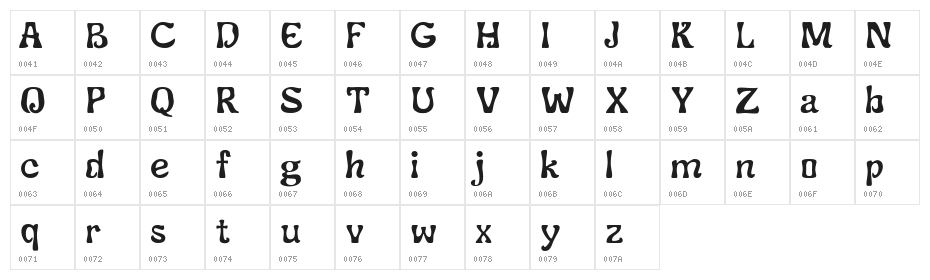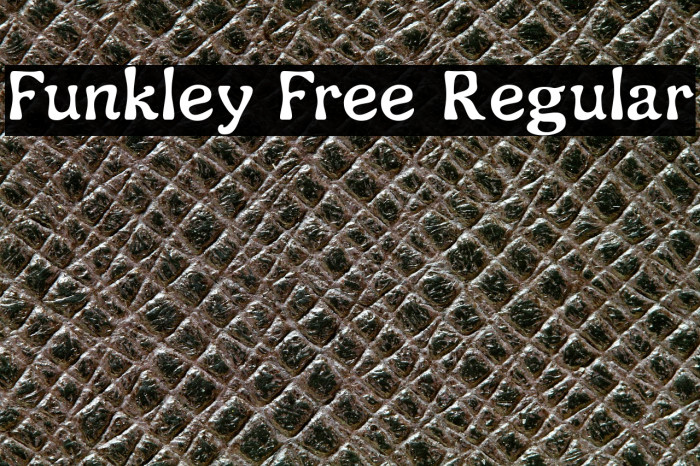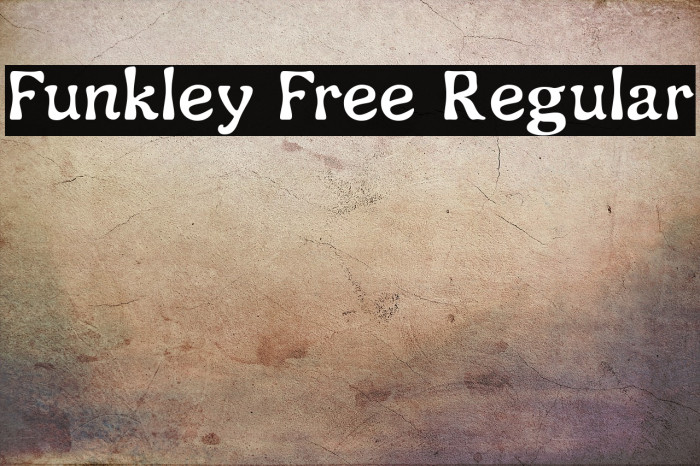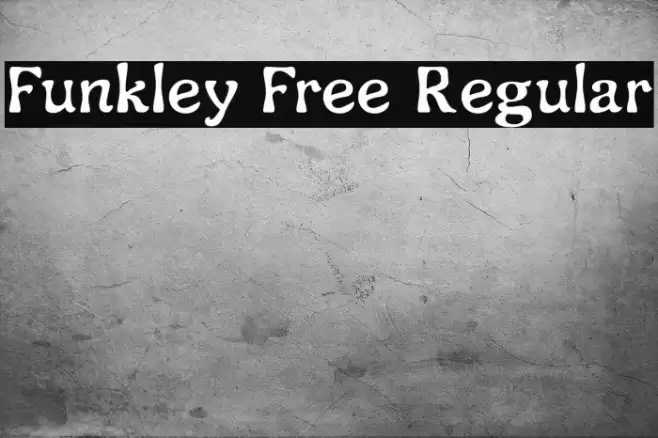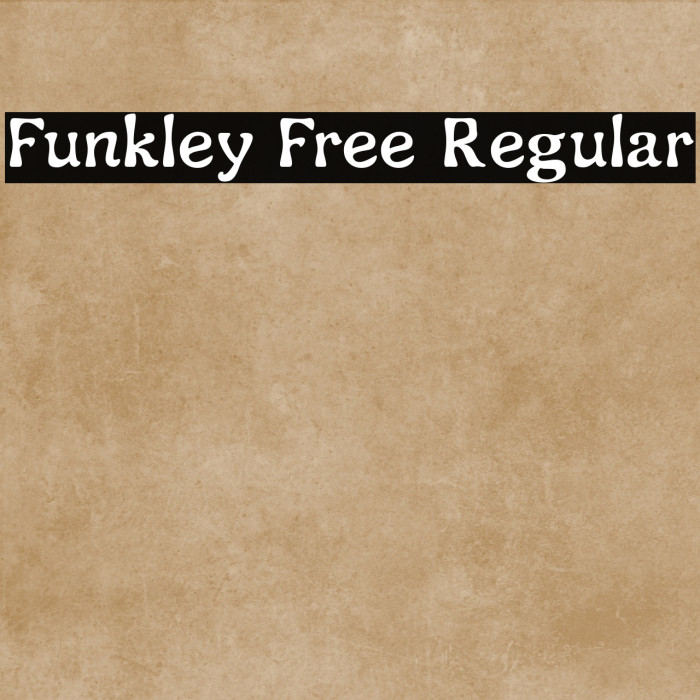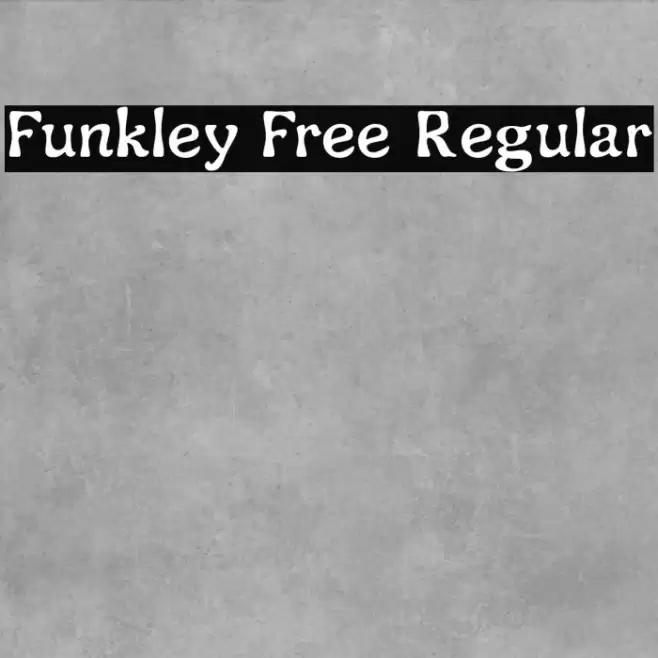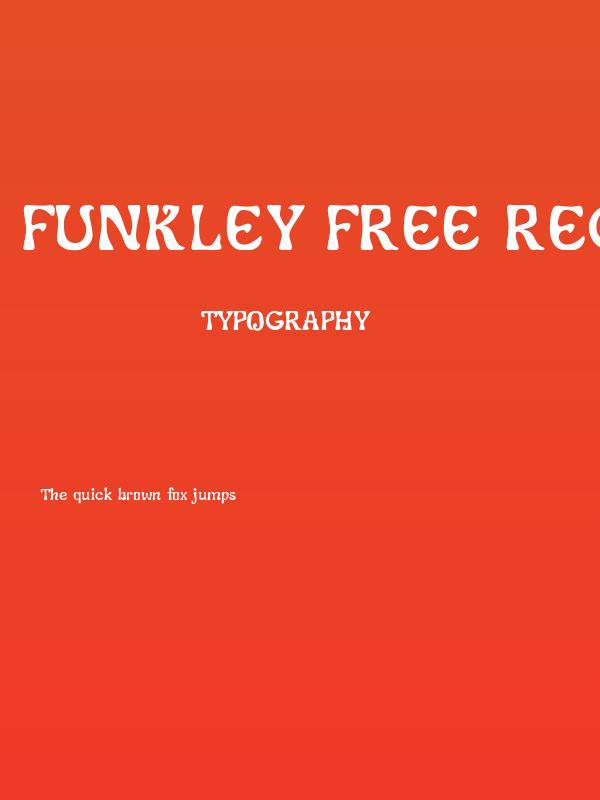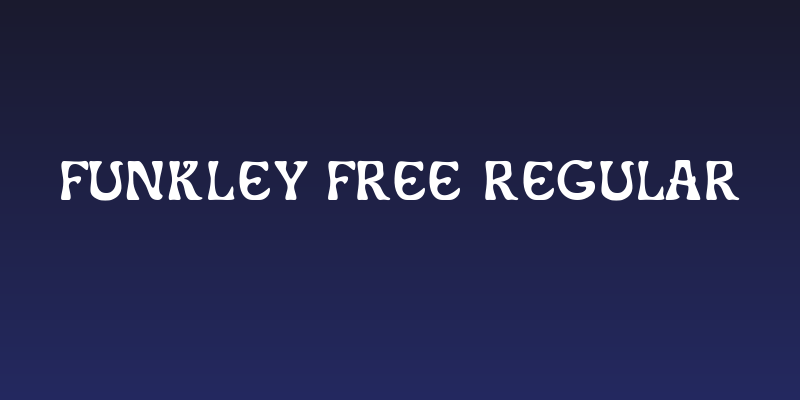
Funkley Free Regular Font
Funkley Free Regular Description
This font features a playful and whimsical design, characterized by its bold and irregular strokes that give it a unique, hand-drawn appearance. The letters exhibit a slightly uneven baseline, adding to its quirky charm. The uppercase and lowercase letters are distinct, with the uppercase being more pronounced and the lowercase maintaining a consistent style. The numbers and special characters follow the same playful theme, making the font suitable for creative and informal projects. Its overall style is reminiscent of a vintage or retro aesthetic, yet it maintains a modern appeal through its boldness and unique character shapes.
| Overall Style | Vintage, Decorative |
| Proposed Projects | Ideal for children's books, creative posters, playful branding, and retro-themed designs. |